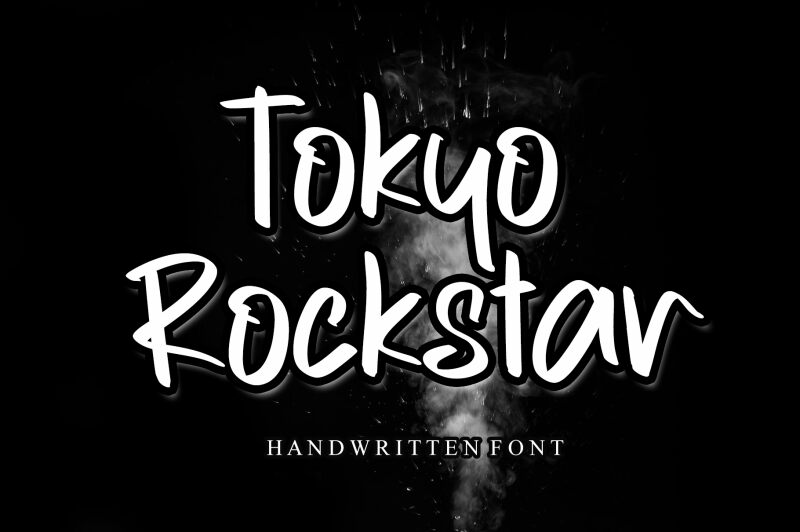
Tokyo Rockstar font is a handwritten typeface from Letterafa Studio. This free font combines casual charm with energetic and spontaneous curves for an exceptional content presentation. With proper usage, this expressive font can create a cutting-edge modern design that instantly captures the eye.
Let your branding project be like no other with a unique logotype, packaging design, or business card. Use Tokyo Rockstar in posters, flyers, book covers, albums, and apparel designs. The brush stroke scripts can make lovely invitation cards or social media presentations that everyone will enjoy looking at.